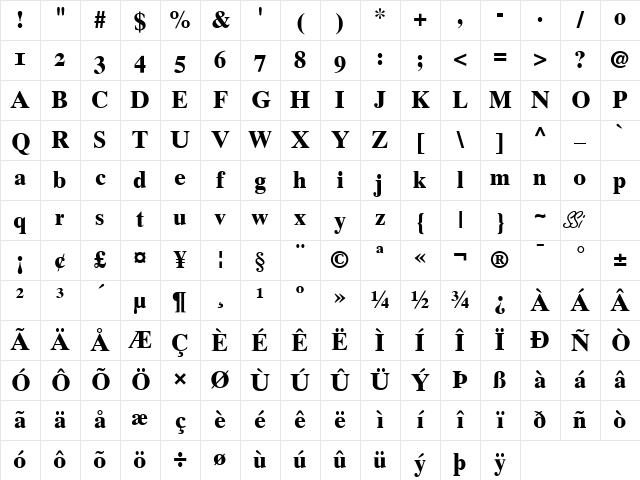
Greco Ten OldStyle SSi Bold Old Style Figures
Style: Bold Old Style Figures
Greco Ten OldStyle SSi Family
Greco Ten OldStyle SSi Bold Old Style Figures
Design Context for Greco Ten OldStyle SSi
Greco Ten OldStyle SSi carries the refined structure of traditional serif typography, with bracketed terminals and considered proportions that communicate credibility and craft. Its bold stroke weight gives it real presence on the page.